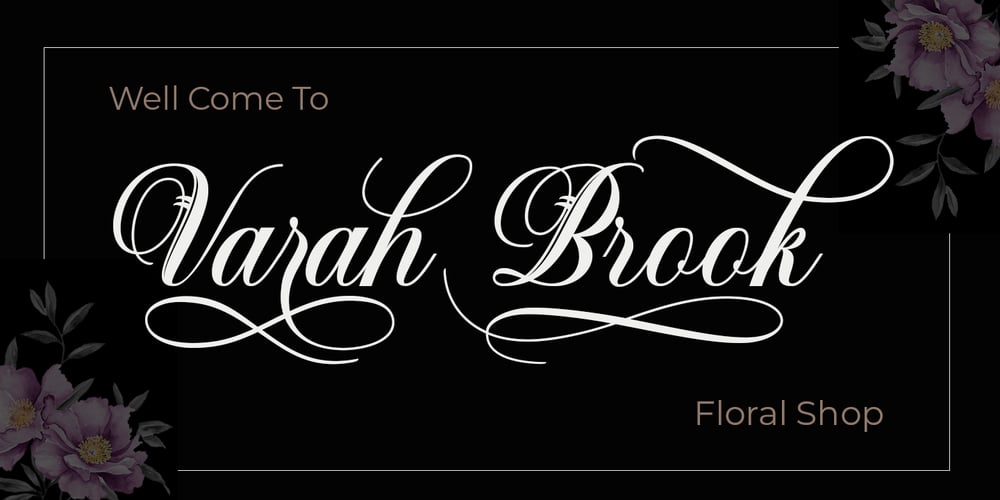
Claudia Betta
Claudia Betta font
Claudia Betta Font Family was designed by May Adifarzan muis and published by Matra Creative. Claudia Betta contains 1 styles and family package options. Claudia Betta Font is a formal script font with multilingual support. It is ideal for wedding invitations, magazines, social media, restaurant menus, greeting cards, birthday invitations, headers and more. This font is equipped with a complete set of lowercase and uppercase characters, various kinds of punctuation ligatures, numbers and and multilingual support.